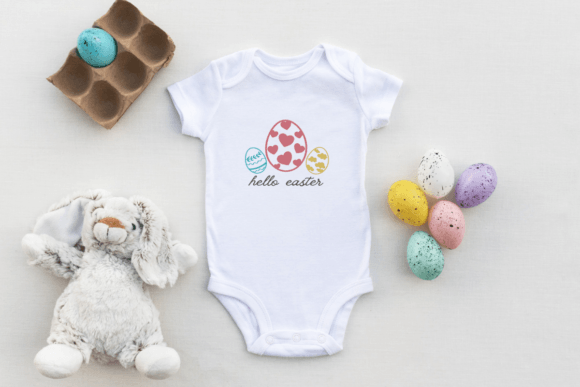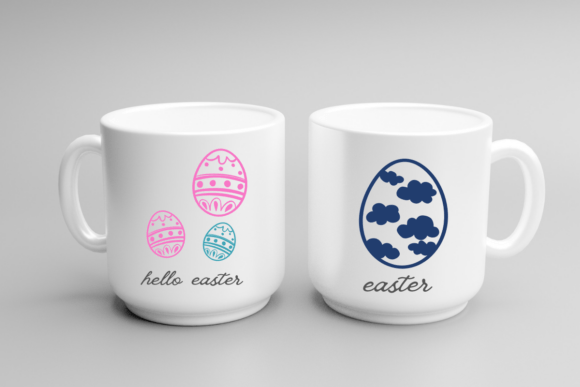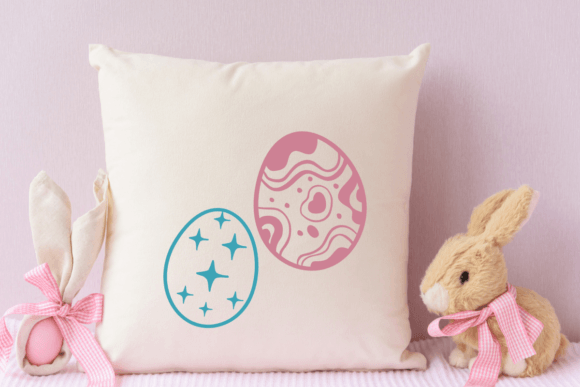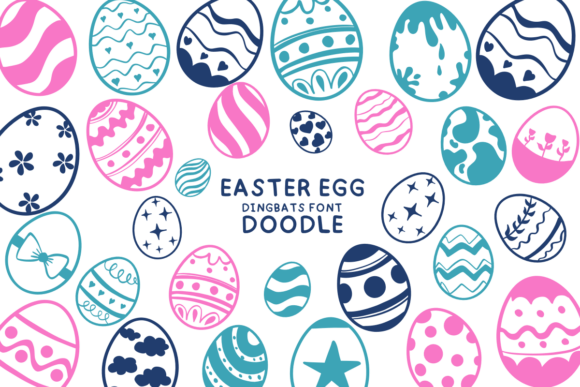
Introduction to Easter Egg Doodle Font
Easter Egg Doodle is a distinctive dingbat font sketched to perfection.
With its inventive and imaginative theme, it is ideal to embellish a variety of creative endeavors Be it invitations, DIY projects, crafts, or decorations, this font adds an extra layer of charm and appeal.
Key Features of Easter Egg Doodle Font
Why Choose Easter Egg Doodle Font?
Easter Egg Doodle Font offers exceptional quality and versatility, making it a valuable addition to your design toolkit. Whether you’re creating for personal projects or commercial use, Easter Egg Doodle Font delivers professional results.